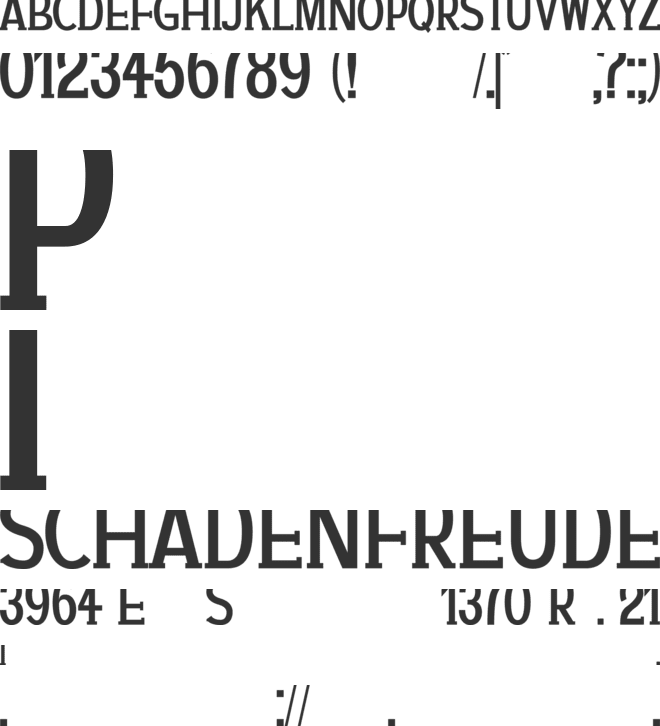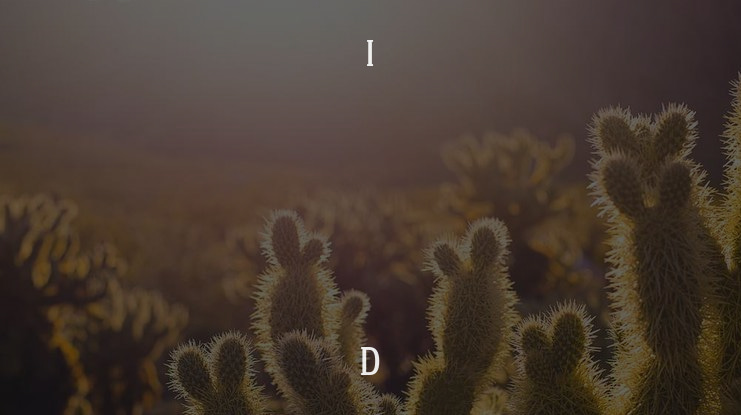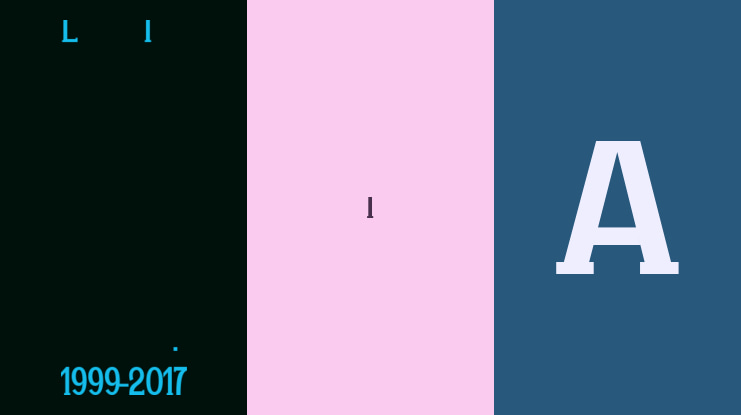
augue Font Family
๐ŸŽจ Font Name: AUGUE by Minimalist Art Studio
๐ŸŽจ Font Description: A classic slab serif with bold character and multilingual finesseโ€”ideal for timeless headlines, logos, and editorial layouts.
โœ” Complete Latin set + multilingual diacritics
โœ” Alternates, stylistic sets & ligatures
โœ” Numbers, small caps, and extended punctuation
โœ” Bonus italics and family styles